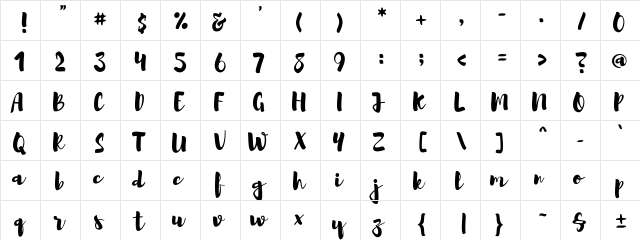
Brusher Regular
Design Context for Brusher Typeface
Brusher flows with the natural rhythm of handwritten lettering, making it ideal for designs that call for warmth and personal expression.
Font Pairing: Combine Brusher with a simple geometric sans for maximum contrast — the tension between flowing curves and clean structure is a classic typographic pairing.
Pro Tip: Use Brusher for short runs of text — names, titles, or taglines. Extended body copy in script faces tires the eye quickly.